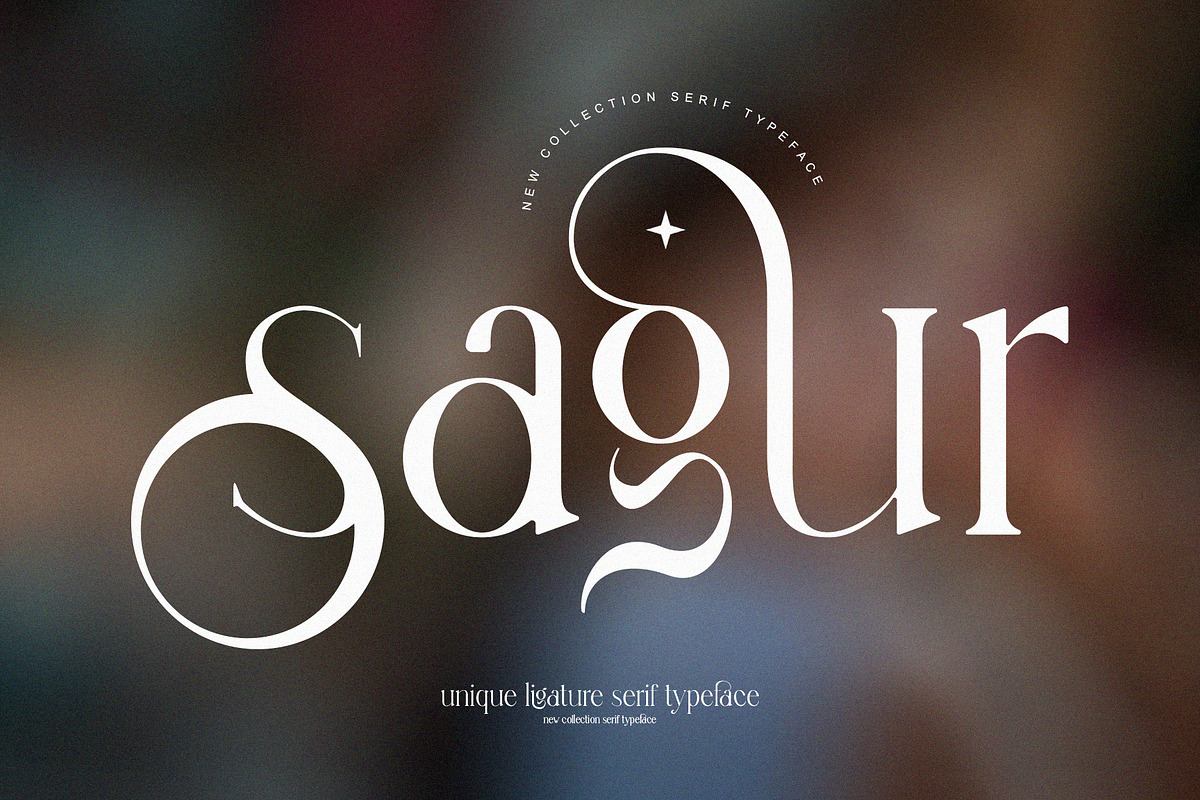
Sagur Unique Ligature Serif Typeface is perfect for luxury brand identities, high-end editorial design, exclusive book publishing, sophisticated packaging materials, premium logo creation, elegant magazine layouts, refined wedding invitations, upscale restaurant branding, cultural institution materials, artistic publications, distinguished signage systems, and bespoke typography projects.
Sagur Unique Ligature Serif Typeface is exciting because it revolutionizes traditional serif typography through its extraordinary ligature system that creates seamless letter connections and flowing text rhythms unlike anything seen before in contemporary type design. This masterful typeface features innovative character combinations with sophisticated serif details that elevate every word into a work of typographic art. The font's unique ligature architecture transforms ordinary text into visually stunning compositions that captivate readers and enhance content engagement.
This groundbreaking typography solution transforms standard communications into extraordinary typographic experiences through its revolutionary ligature system and refined serif craftsmanship. Sagur Unique Ligature Serif Typeface Free Download enables designers and typographers to access premium innovative serif typography that instantly adds sophistication, uniqueness, and artistic excellence to any creative project. The font's meticulously designed ligature connections ensure fluid reading experiences while maintaining distinctive character and visual impact.
Luxury brands, publishing houses, and cultural institutions trust Sagur Unique Ligature Serif Typeface for its ability to communicate exclusivity, sophistication, and artistic excellence to discerning audiences who appreciate innovative typography and refined design aesthetics. The typeface's sophisticated construction performs beautifully across various applications, from intimate artistic publications to large-scale luxury branding campaigns. Its extensive character support includes multilingual capabilities and artistic design elements that enhance sophisticated brand presentations.
The design innovation behind Sagur Unique Ligature Serif Typeface represents years of typographic research and artistic exploration to create letter connections that feel natural yet extraordinary. This innovation-focused approach creates a font that feels genuinely revolutionary while maintaining classical serif elegance across different luxury contexts and sophisticated brand expressions.